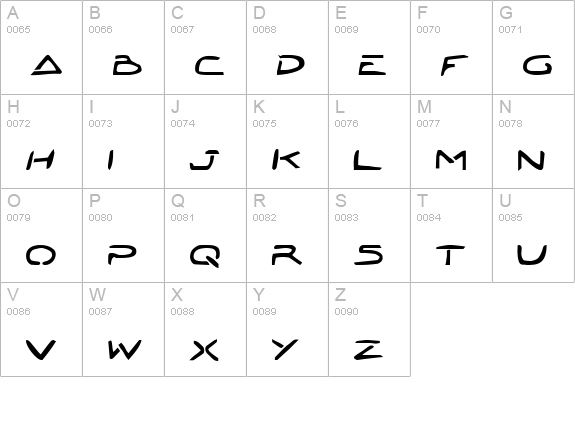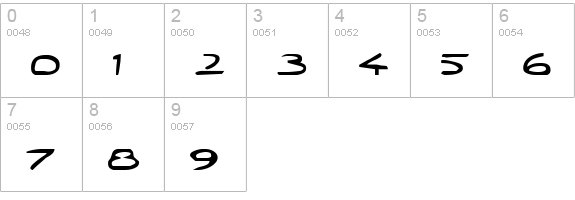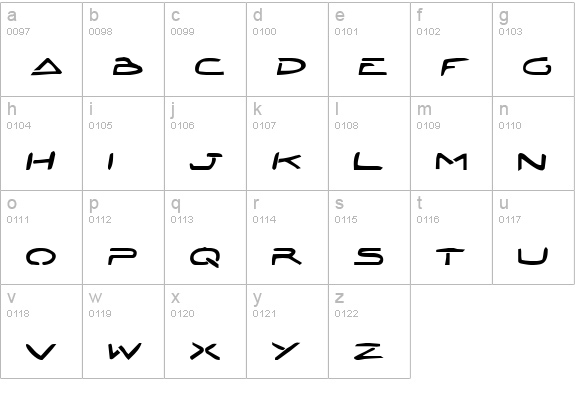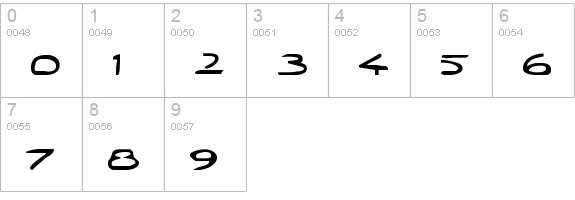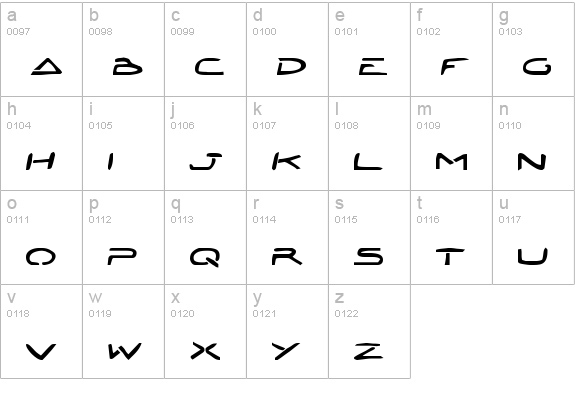
Jetta Tech Bold is a strong, high-contrast variant in the Jetta typeface family \xE2\x80\x94 well suited to headlines, attention-grabbing titles, and strong calls-to-action.
Introducing Jetta Tech Bold font, a sleek and modern typeface that exudes confidence and sophistication. With its clean lines and bold strokes, Jetta Tech Bold is perfect for making a statement in your design projects. This versatile font is ideal for a wide range of applications, from branding to editorial design. What's even better is that Jetta Tech Bold is completely free to download at FontsMarket.com. Whether you're a seasoned designer or just starting out, this font is a valuable addition to your toolkit. So why wait? Elevate your designs with Jetta Tech Bold today!